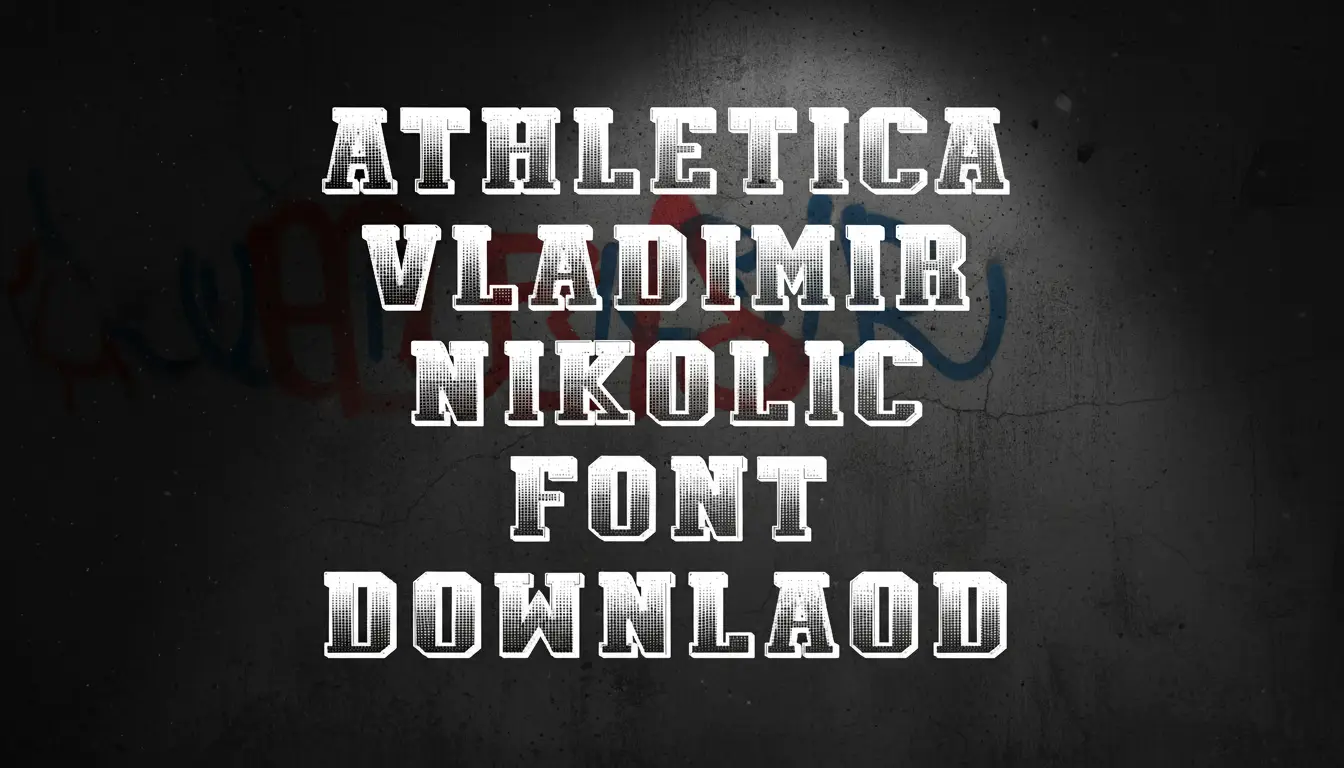
Athletica Vladimir Nikolic Font
Athletica Vladimir Nikolic
Athletica Vladimir Nikolic is a fancy font created by Vladimir Nikolic. It's a decorative display font with plenty of personality, made to grab attention. It's a free download, and you can try it with your own text in the preview above first.
You get every letter from A to Z in both cases and all the numbers from 0 to 9, which means Athletica Vladimir Nikolic can handle full sentences, dates and prices. Common punctuation such as ! and ? is included as well. It doesn't include accented letters such as é or ñ, which makes it an English-only font.
Think of Athletica Vladimir Nikolic for posters, logos and eye-catching headlines. Use it for one standout word or headline and let simpler fonts handle the rest.